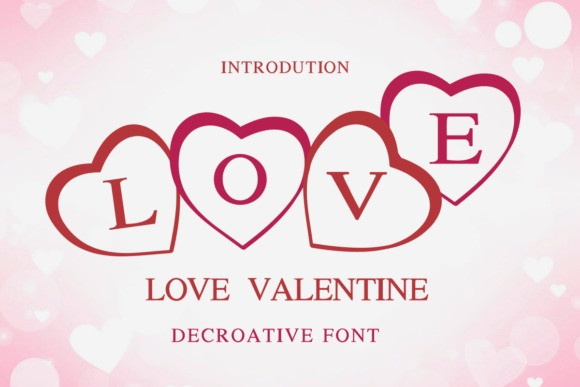
Love Valentine Typeface
Designer: Nongyao
Love Valentine Typeface is a Decorative font You can use it for taking notes, writing a diary, or making greeting cards. However, you can still use it for other designs, such as banners, content, mugs, cards, shirts, stationery, social media posts, and more!